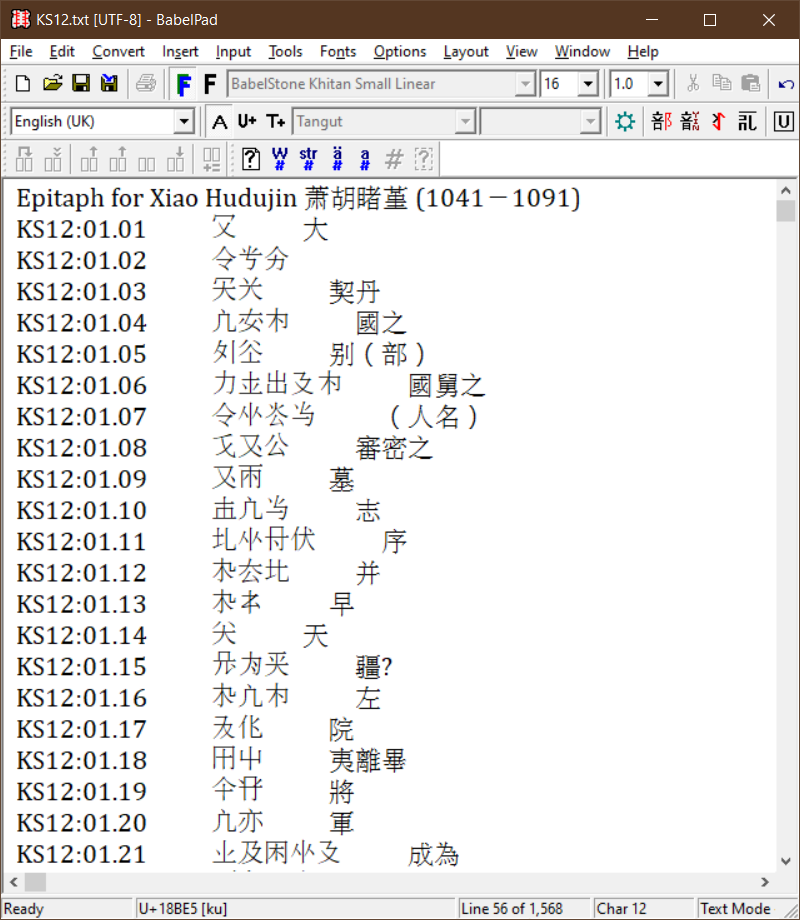
BabelStone Khitan Small Linear v. 16.000 is a Unicode font supporting the 470 Khitan Small Script characters which were encoded in Unicode version 13.0 (March 2020). This font does not support cluster composition, but is intended for displaying individual glyphs in horizontal linear layout as used in Daniel Kane's The Kitan Language and Script (Brill, 2009). This font uses a Chinese (Song/Ming) style of glyphs which is not attested in surviving examples of Khitan small script text (mostly epitaphs engraved on stone tablets). See Khitan Small Linear for a font using glyphs designed by Prof. Jǐng Yǒngshí 景永时 of the Beifang Ethnic University (北方民族大学) which match the glyphs shown in the Unicode code chart.
This font was originally called "BabelStone Khitan Small", with glyphs mapped to the Private Use Area a E000..E1C4. A mapping table from the PUA glyphs in the old font to the Unicode Khitan Small Script characters is available here.
Some glyph variants are available in the font as unofficial variation sequences using VS17 for the default glyph form and VS18+ for variant glyph forms.
Example of BabelStone Khitan Small Linear